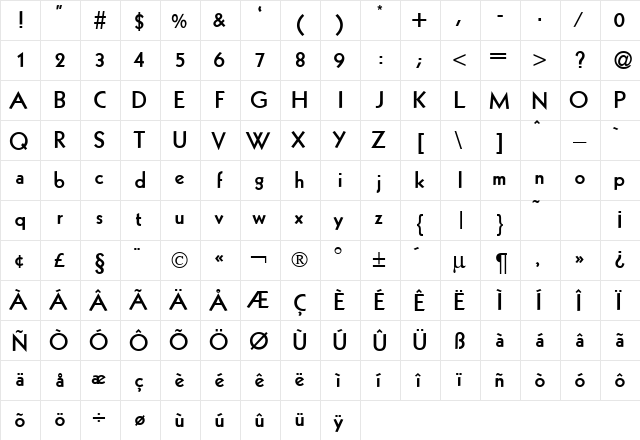
KabinLightDB Bold
Design Context for KabinLightDB Typeface
KabinLightDB takes a measured approach to typography — its balanced proportions and neutral character make it a reliable workhorse for both digital and print work. The heavy weight commands attention and anchors typographic hierarchies.